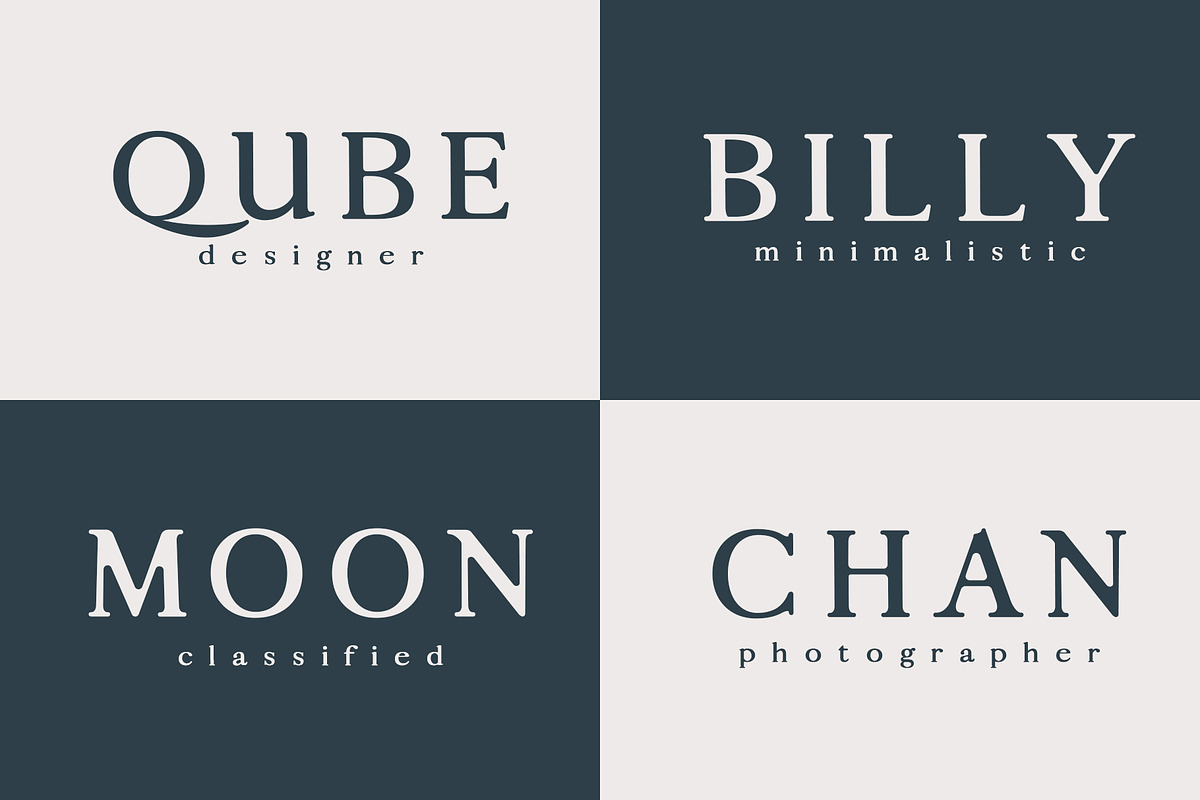
Caelan Serif Font Family
Caelan is a modern and minimalist serif typeface. It comes with 3 weights: Regular, Round and Bold versions, which contains complete basic glyphs with multilingual support. Caelan will be perfect for packaging, presentations, logo, headlines, lettering, posters, branding, quotes, titles, magazines headings, web layouts, advertising, invitations, packaging design, books, and nearly any creative design.
Included Features:
- Font Weight: Regular, Round and Bold
Caelan Font Features:
- Uppercase Letters
- Lowercase Letters
- Non English Characters ( Latin Supplement + Latin Extended A)